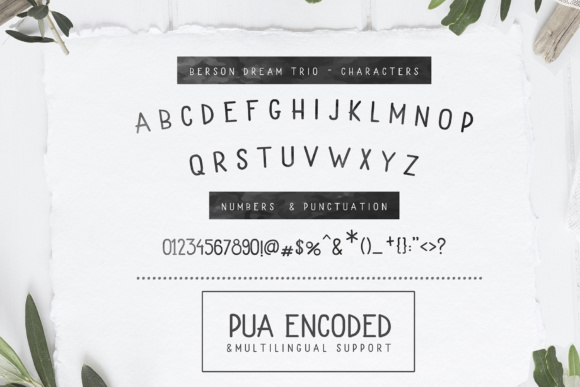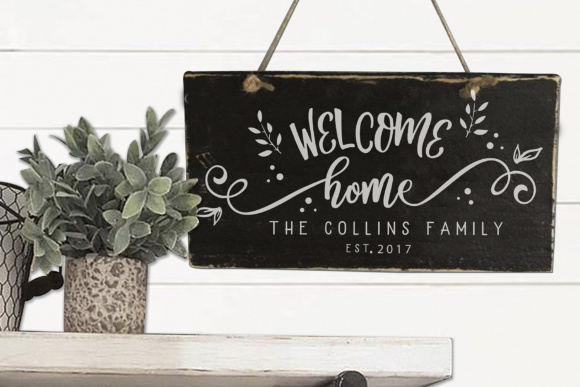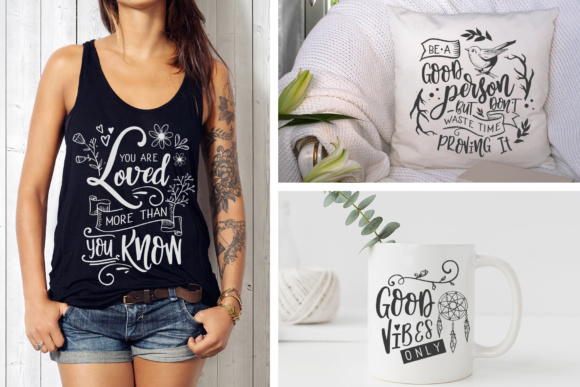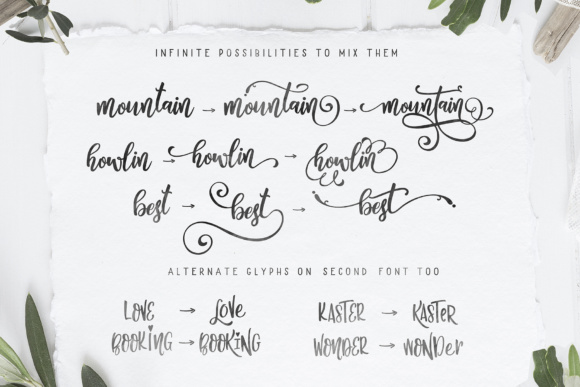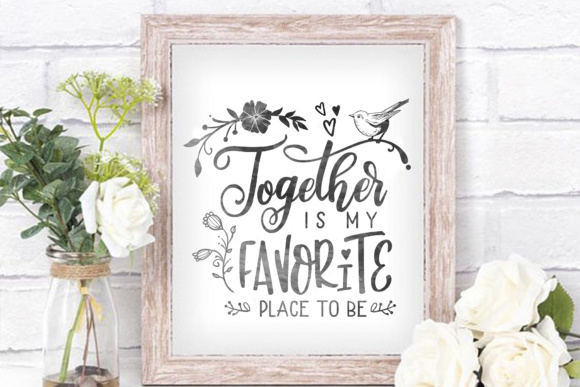
Berson Dream Font
About Berson Dream Font
Berson Dream is a stunning font family filled with 3 complementary fonts and rustic illustrations, perfect for use in any imaginable project! This font has a romantic and doodle-like quality, and makes it easy to create print works of any kind.